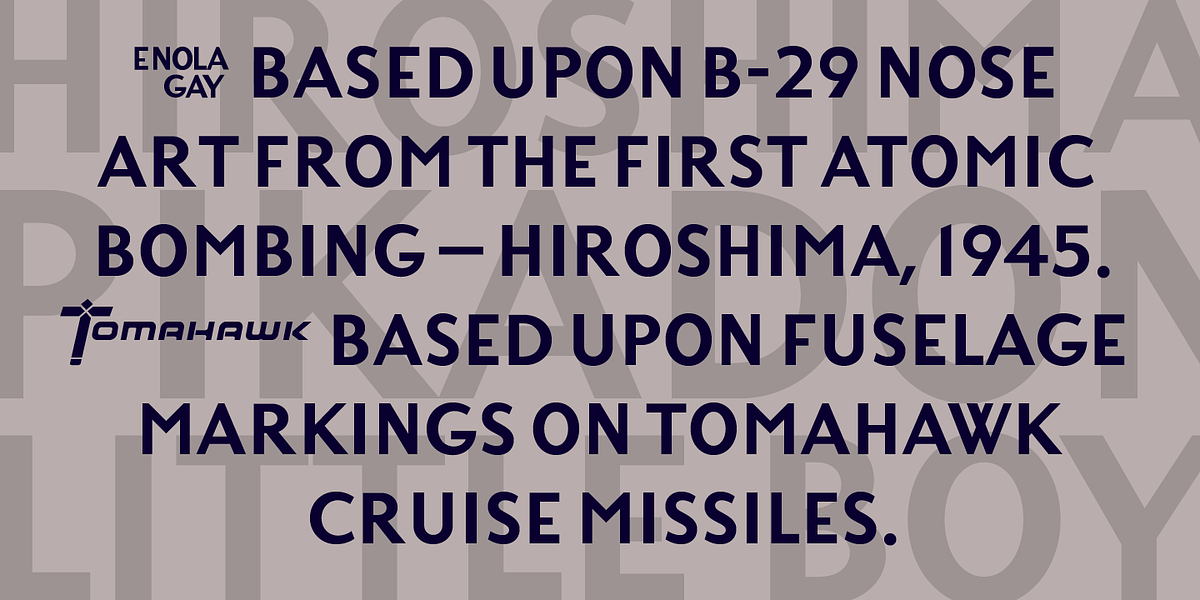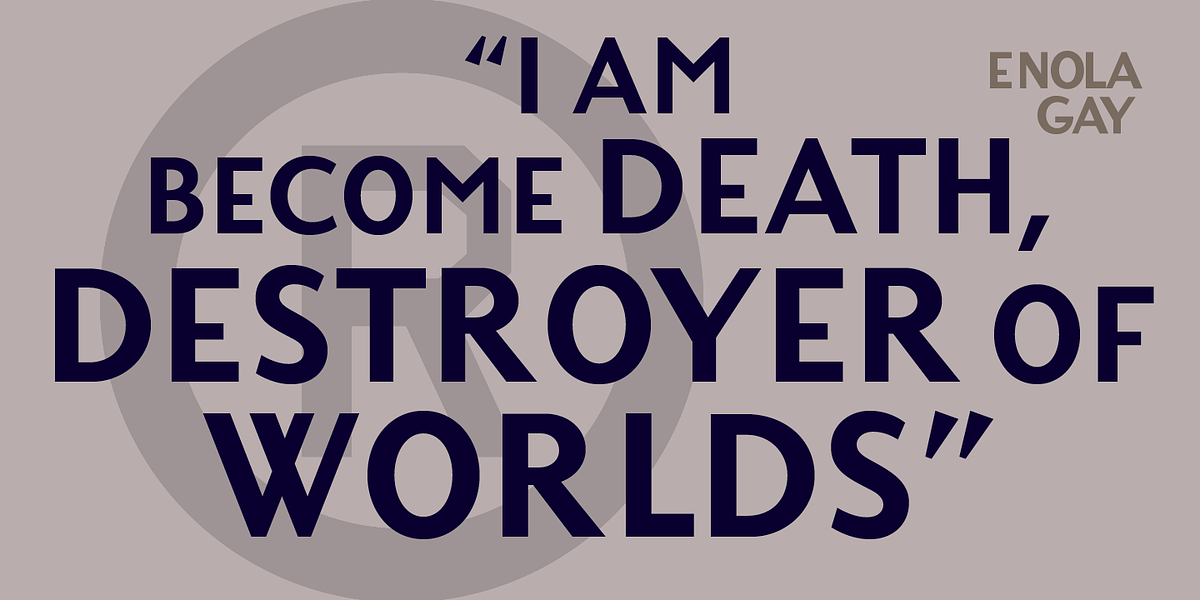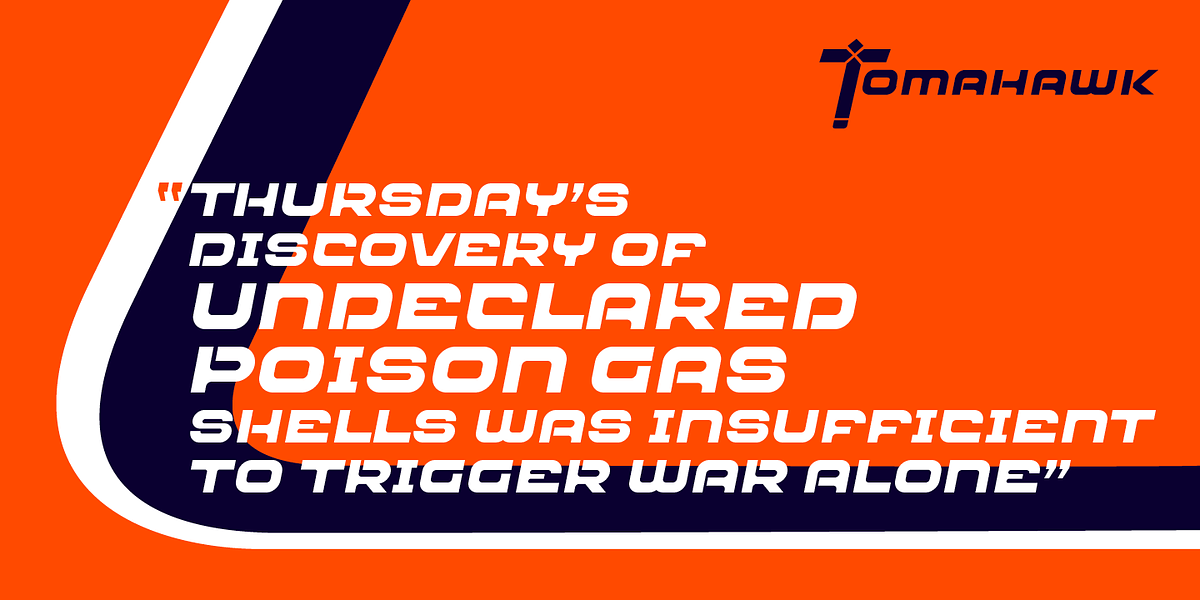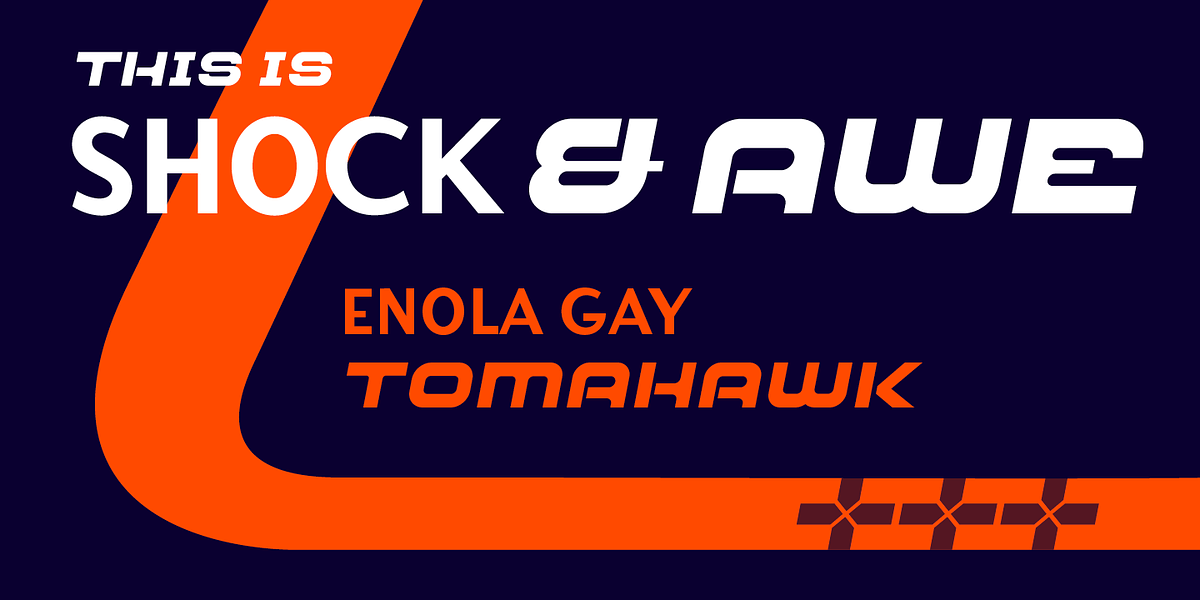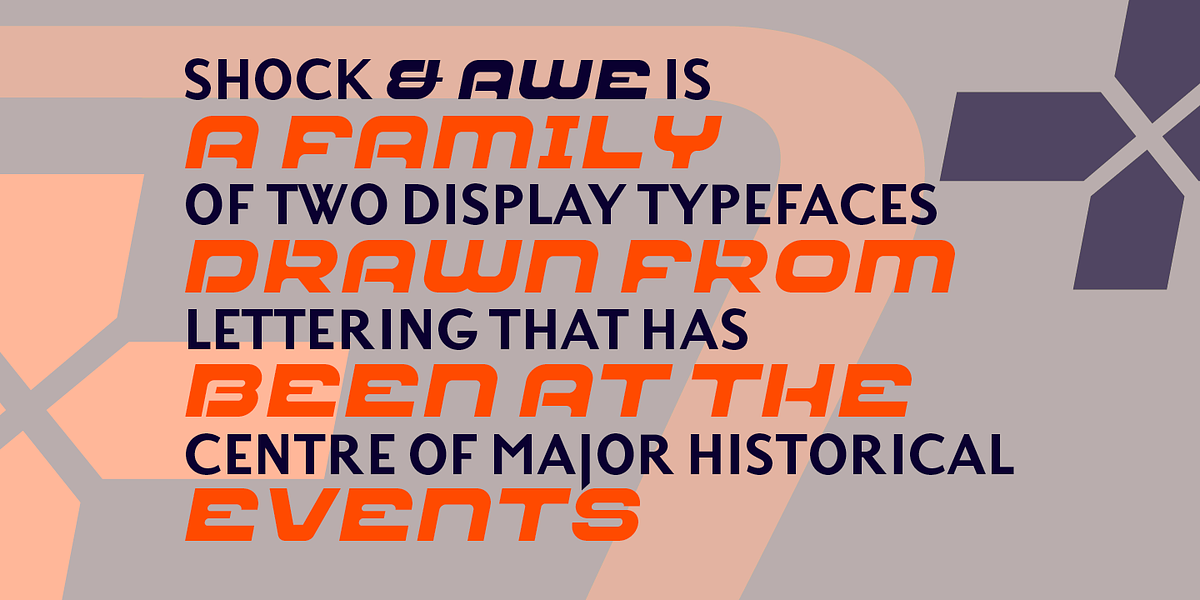
Shock and Awe
The Shock and Awe font family draws inspiration from historical military lettering. Enola Gay, named after the B-29 bomber that dropped the atomic bomb on Hiroshima, features a bold, geometric sans-serif style typical of 1940s aircraft markings. The Tomahawk typeface is inspired by the fuselage lettering of the original Tomahawk cruise missile. Both fonts are designed for display purposes and evoke a sense of power and history.